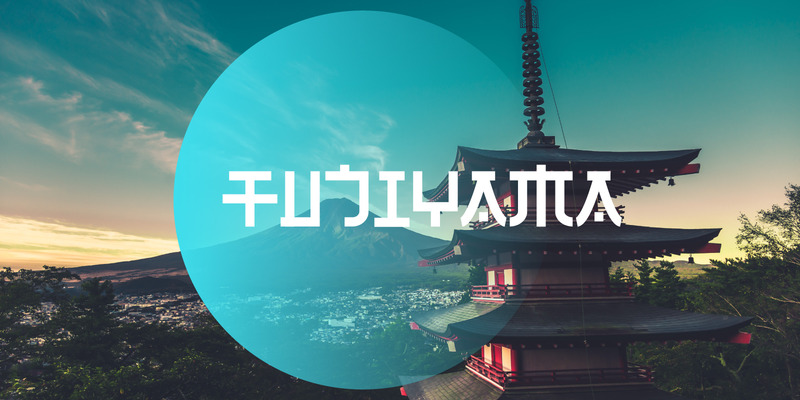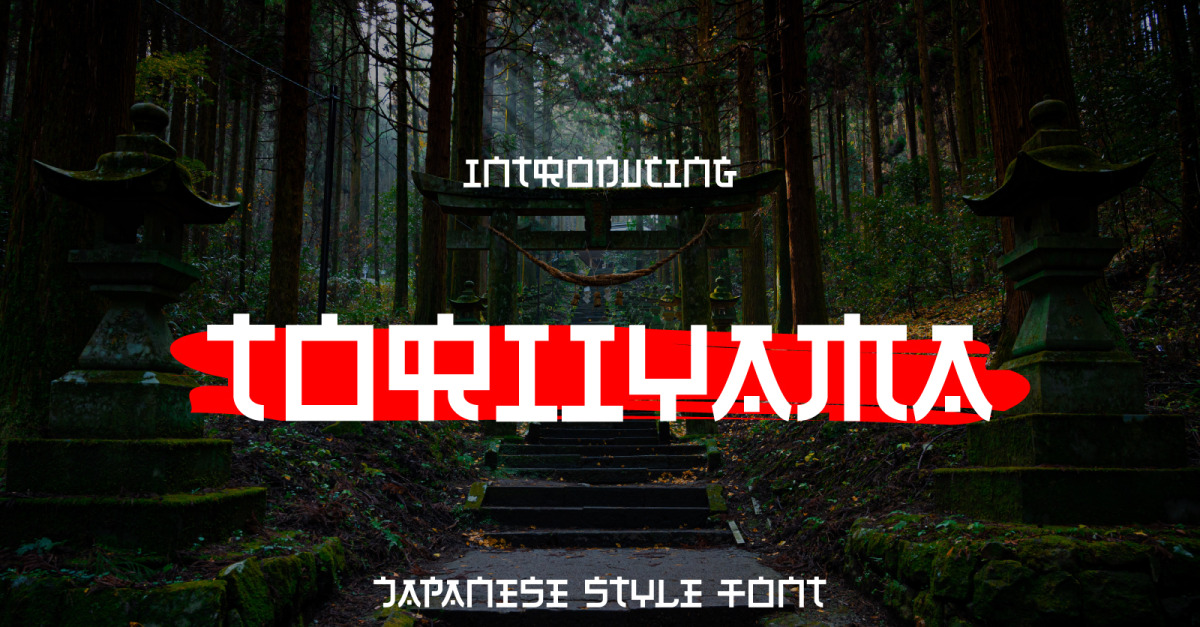
Toriyama - Japanese Style Font
Introducing **Toriyama**, a simple japanese style display font.
So Perfect for you who needs a typeface for logo designs, magazine, social media, brochure, and many more.
+ Uppercase
+ Numerals